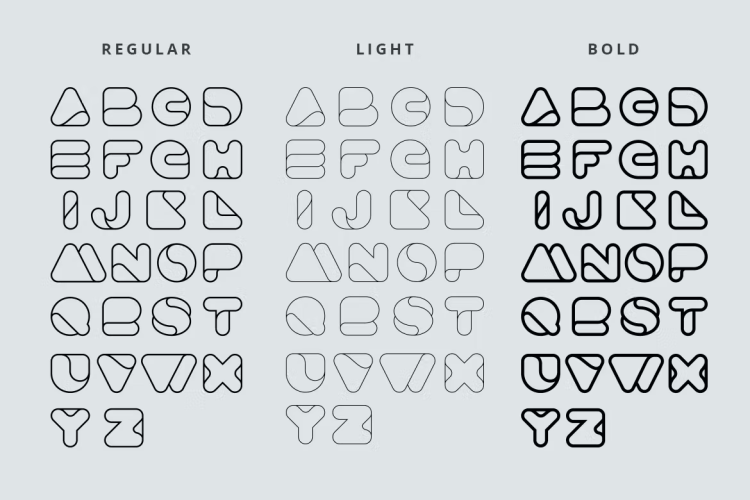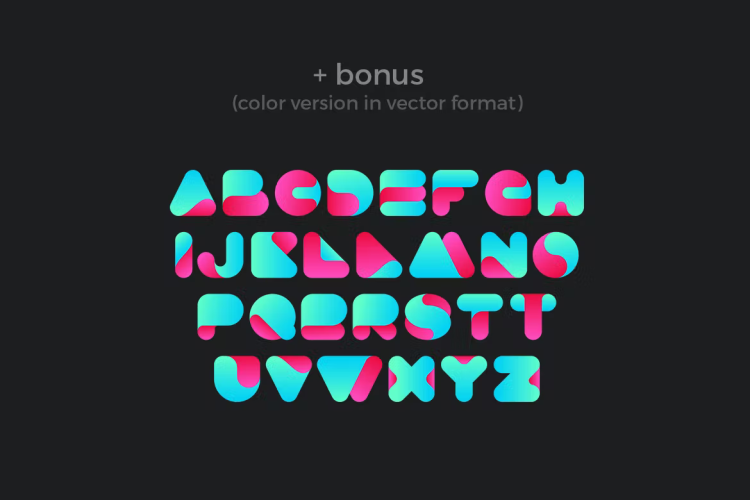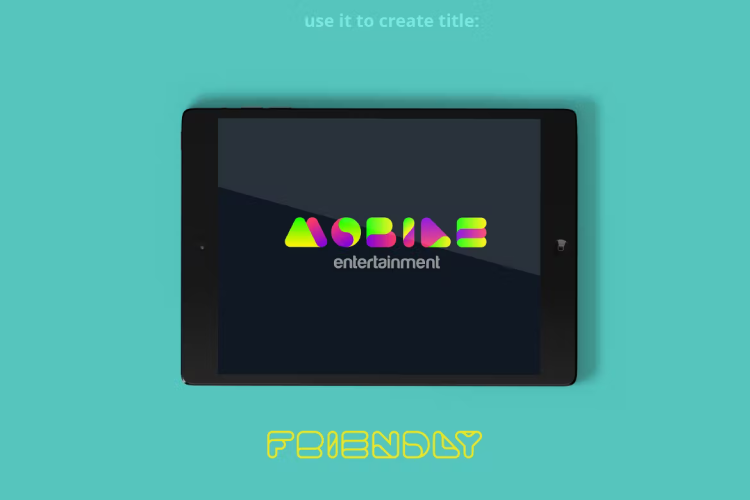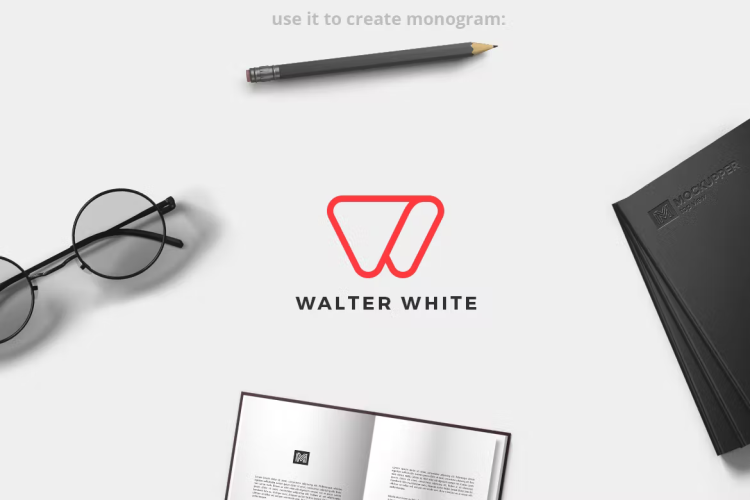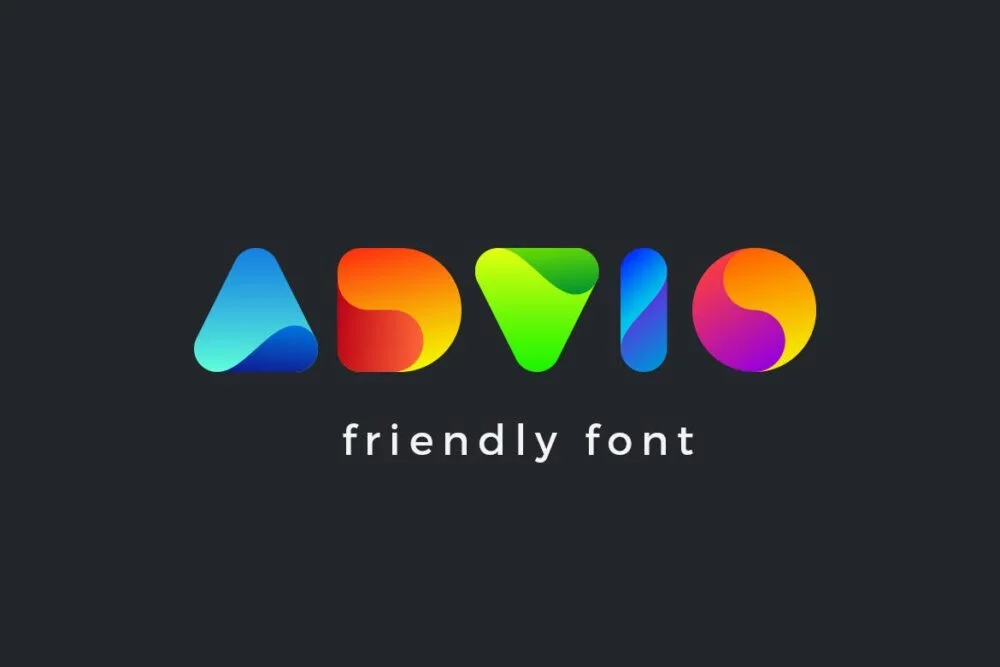
Advio Friendly Font
Advio Friendly Font is a creative font that can be used as logo design and branding, titles & headers, posters & banners in such areas as high-tech, internet & computers…
Advio Friendly Font is a creative font that can be used as logo design and branding, titles & headers, posters & banners in such areas as high-tech, internet & computers, business innovations, sport & entertainment etc.
Where Advio Friendly Font works best
Seasonal campaigns
Advio Friendly Font gives a holiday or themed promotion its own look without redrawing anything; use it for the headline only.
Party and family invitations
Decorative letters set the mood before the text is read. Pair Advio Friendly Font with a plain sans for the practical details.
Game and video titles
Themed lettering sells the world of a game or a channel in one frame.
What kind of work does Advio Friendly Font suit?